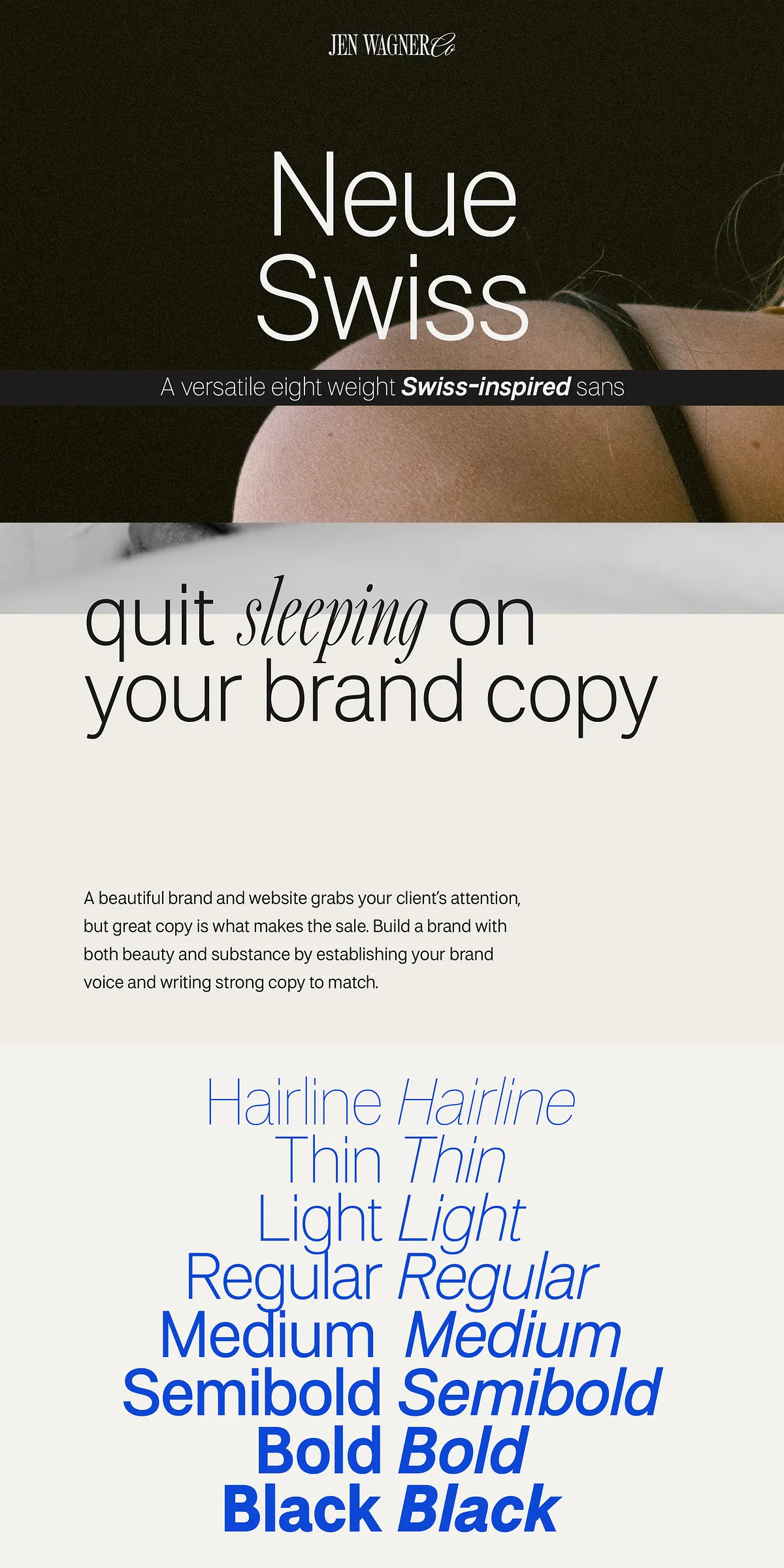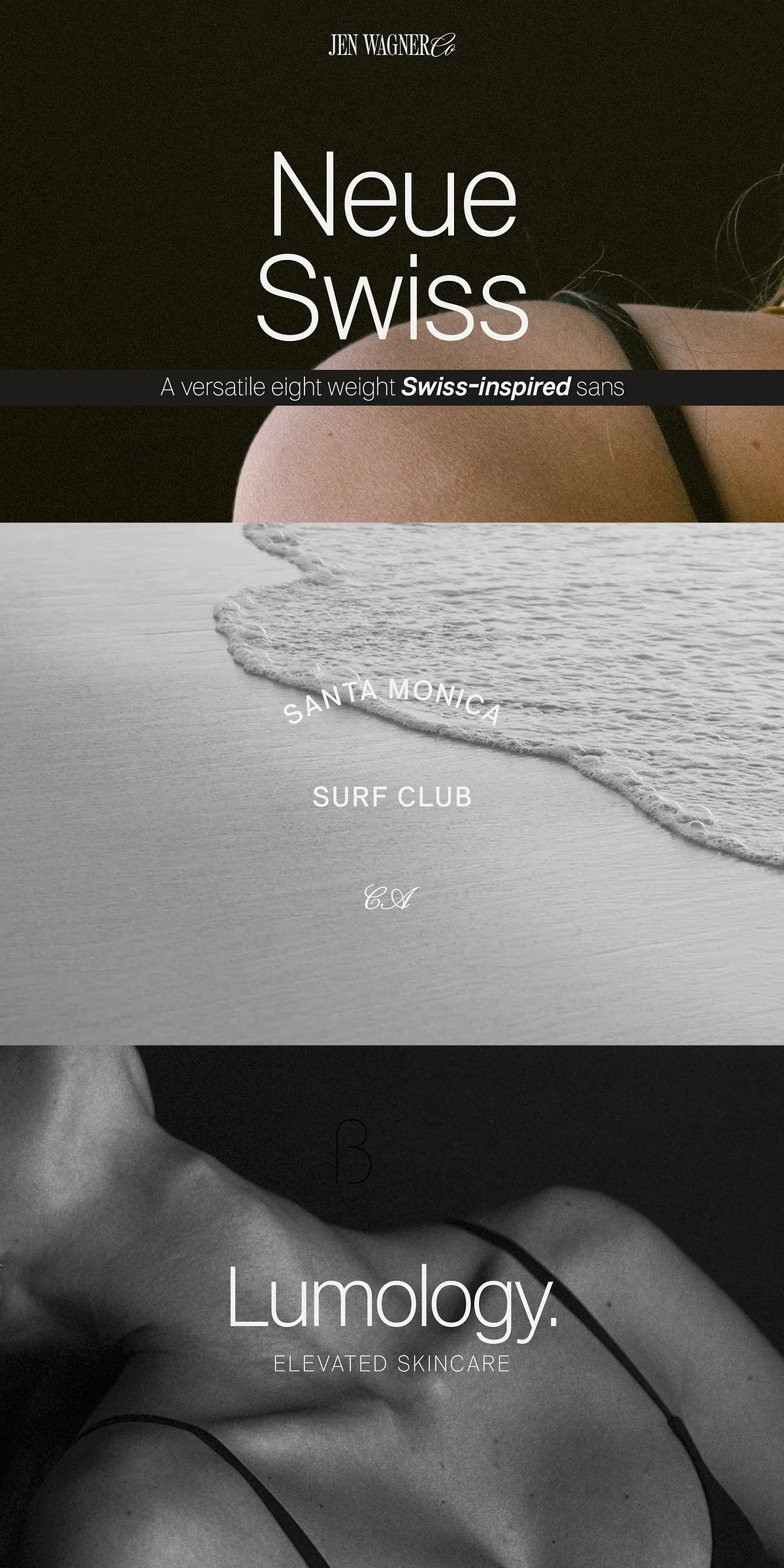
Neue Swiss stands out as a commanding yet minimalistic typeface that effortlessly adapts to a wide range of design contexts. Crafted with precision, this typeface combines contemporary lines with a clean, pared-down aesthetic, making it an essential tool for designers seeking versatility and clarity in their work. With 8 weights and 16 fonts, Neue Swiss offers a comprehensive family that breathes new life into any creative project, whether for branding, web, or print design.
Designed for Versatility and Impact
Neue Swiss is engineered to be your go-to typeface for projects that demand both subtlety and strength. Its minimalist design strips each form down to its essentials, allowing the font to either blend seamlessly into the background or stand out boldly, depending on your creative needs. This adaptability makes Neue Swiss perfect for a variety of applications, from sleek corporate branding to dynamic editorial layouts.
Multiple Weights for Maximum Flexibility
The typeface family includes 8 distinct weights, providing designers with a broad spectrum of options to express hierarchy, emphasis, and tone. Whether you need a light, delicate touch or a bold, assertive statement, Neue Swiss delivers with precision and style. This range ensures that your typography maintains consistency while offering enough variation to keep your designs engaging and readable.
Seamless Integration with Other Fonts
Neue Swiss is not only powerful on its own but also pairs beautifully with complementary typefaces. It works especially well alongside Nautica and Altesse Std, both of which are available free with an Adobe Fonts subscription. This pairing capability allows you to create sophisticated typographic systems that enhance your brand identity or editorial voice.
Perfect for Branding, Web, and Print
Whether you are developing a brand identity, designing a website, or producing print materials, Neue Swiss adapts effortlessly. Its clean lines and modern aesthetic ensure legibility and visual appeal across digital and physical media. The typeface’s minimalist nature also means it complements a wide variety of design styles, from corporate and professional to creative and avant-garde.
Key Features of Neue Swiss Typeface
| Feature | Description |
|---|---|
| Typeface Style | Minimalist, contemporary, and commanding |
| Weights | 8 weights, 16 fonts total |
| Design Applications | Branding, web design, print projects |
| Compatibility | Pairs well with Nautica and Altesse Std |
| Adaptability | Blends in or stands out as needed |
Why Choose Neue Swiss for Your Next Project?
Neue Swiss offers a rare combination of minimalism and presence, making it a versatile choice for designers who want their typography to communicate clearly and effectively. Its clean, modern lines ensure that your message is delivered with confidence, while its extensive weight range provides the flexibility to tailor your design’s tone and hierarchy precisely.
By choosing Neue Swiss, you invest in a typeface that supports your creative vision across multiple platforms and media, ensuring consistency and professionalism in every application.